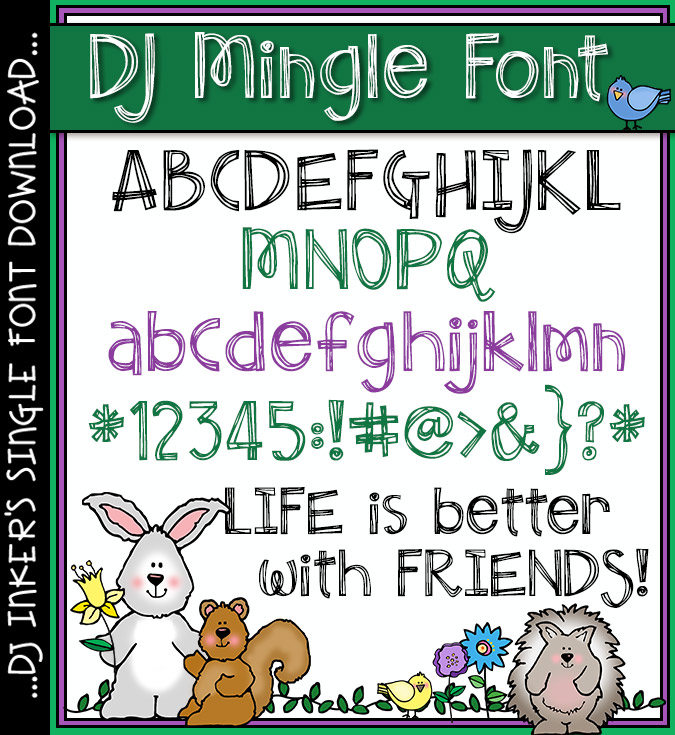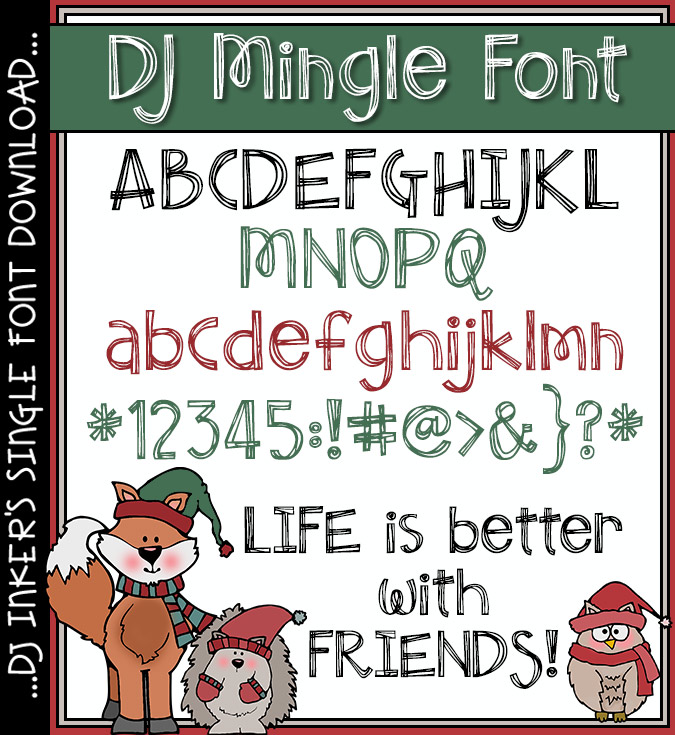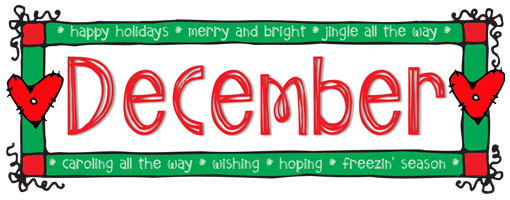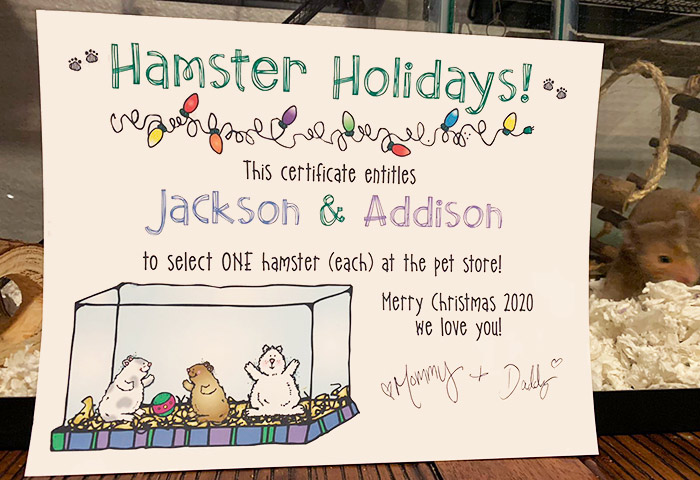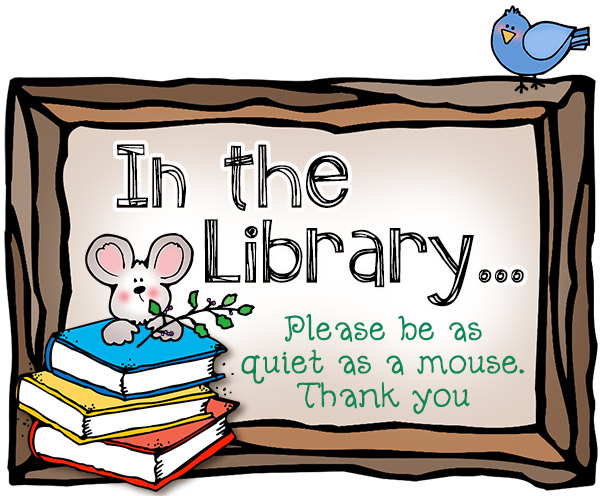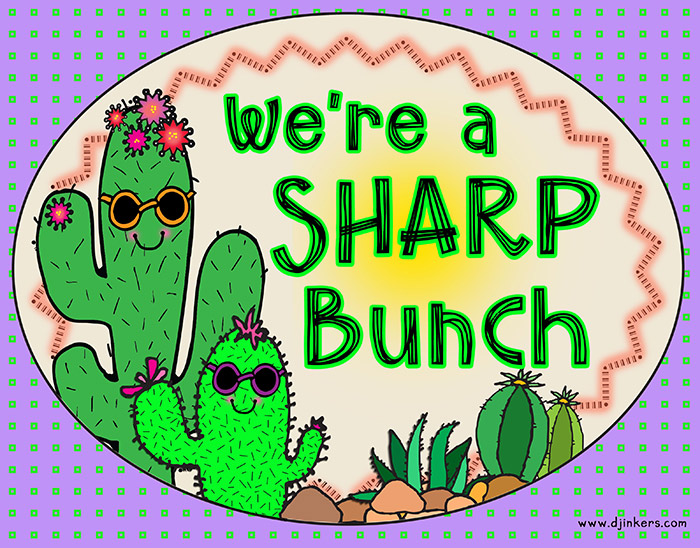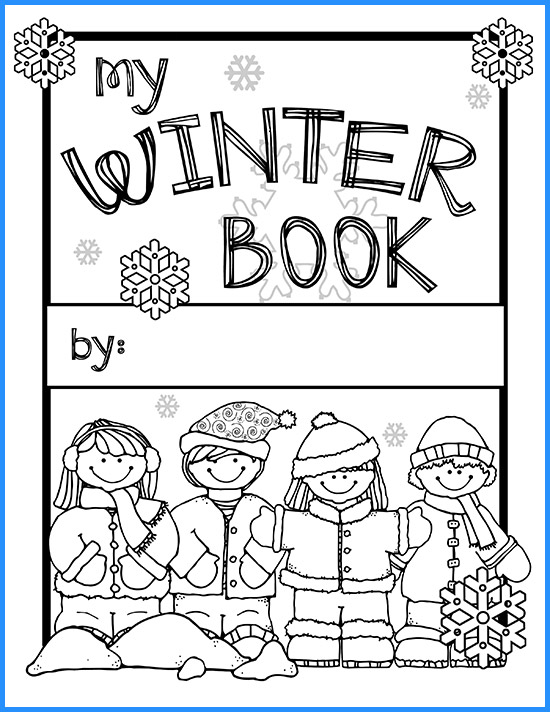
DJ Mingle Font Download
Mix and Mingle with this boldly textured font by DJ Inkers. DJ Mingle will
add style and smiles your lettering that will make your projects pop!
Excellent for headlines, posters, parties, teacher handouts, crafting and
fun with friends.